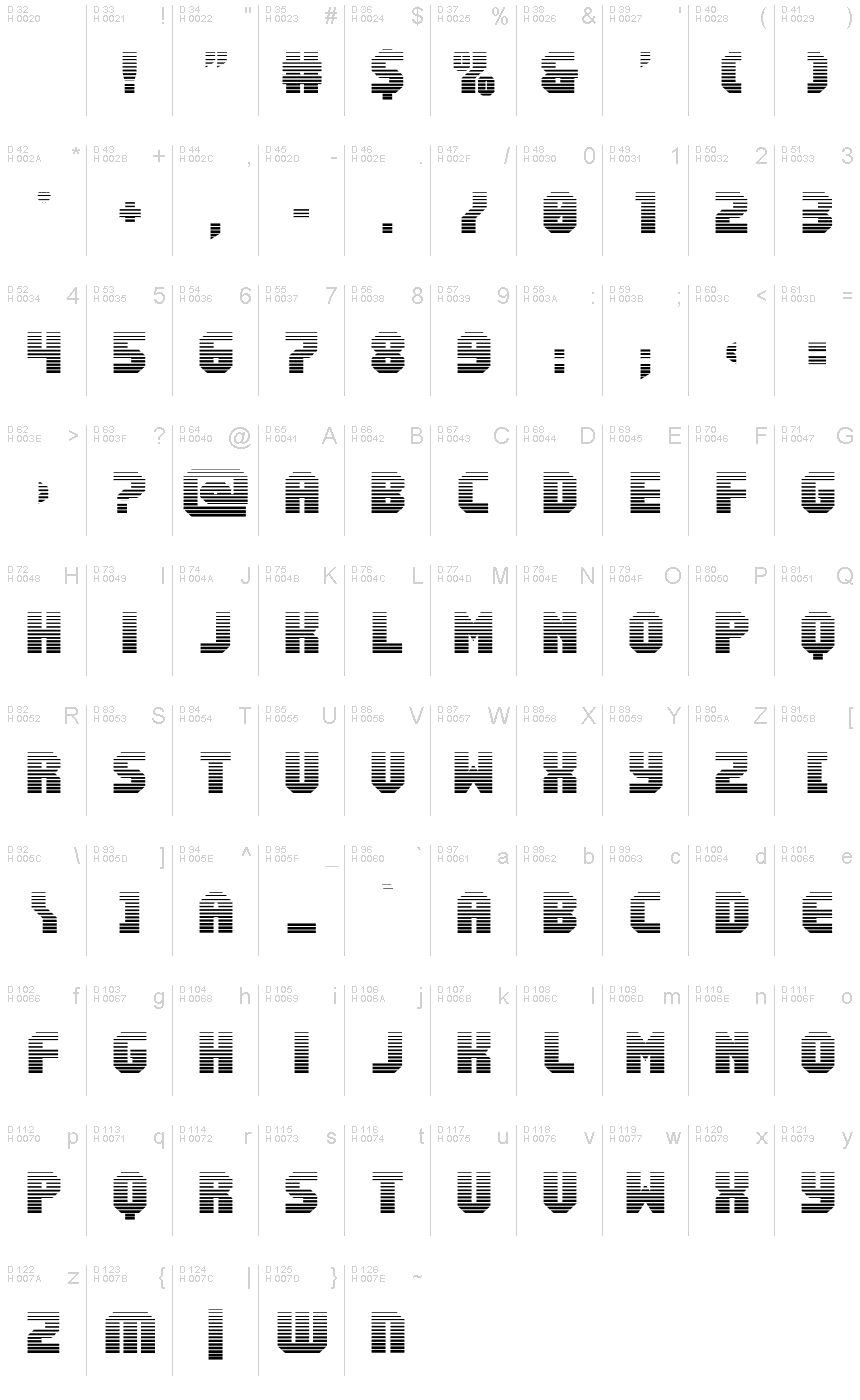
Metal Sentinel Gradient
Metal Sentinel Gradient is a bold, wide display font created by Daniel Zadorozny. With its techno style and sharp edges, this typeface is perfect for modern projects that need to stand out. It looks great on logos and posters, as well as video games and websites. The unique gradient effect of Metal Sentinel Gradient adds an extra layer of depth and detail to any design.